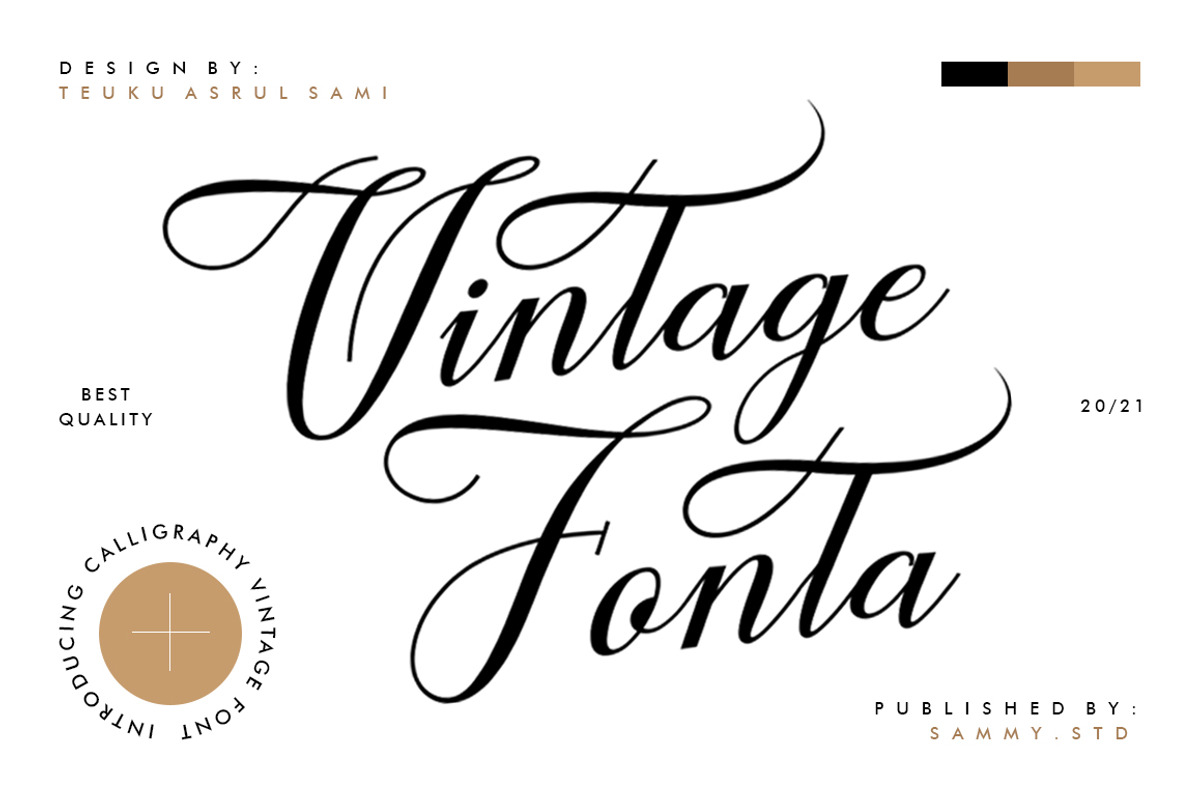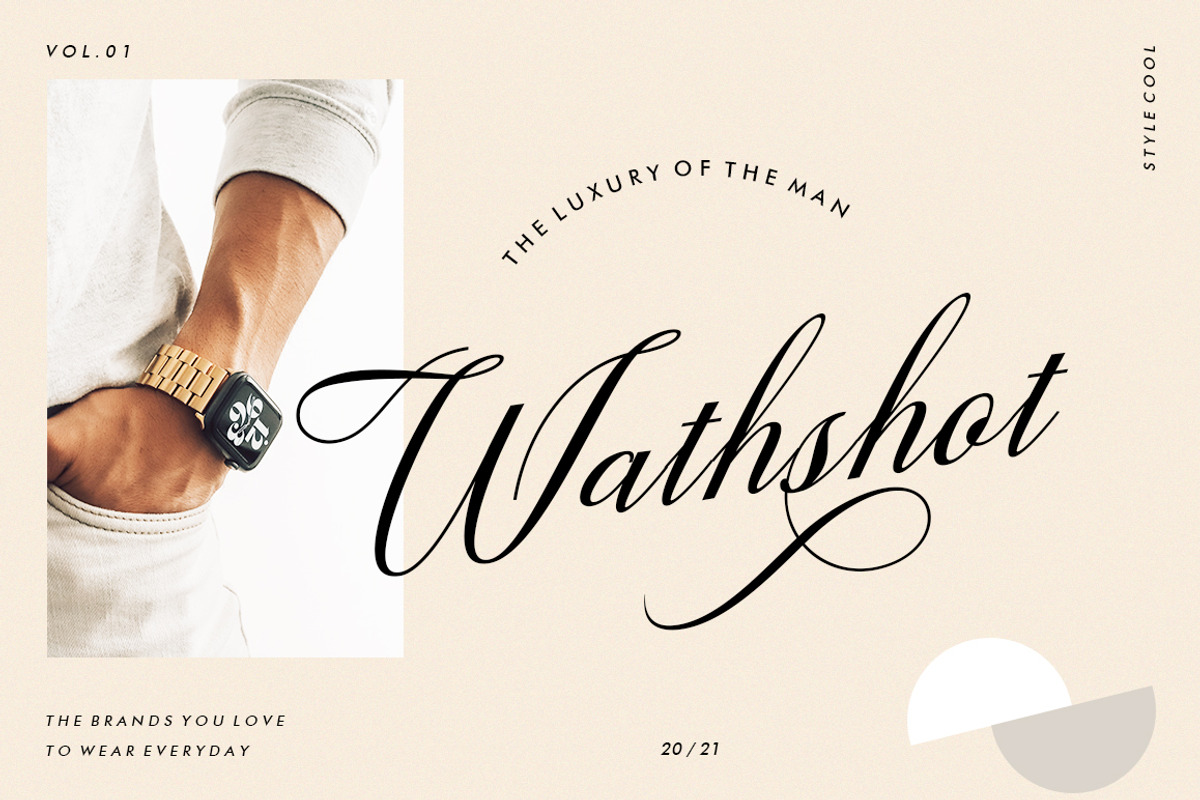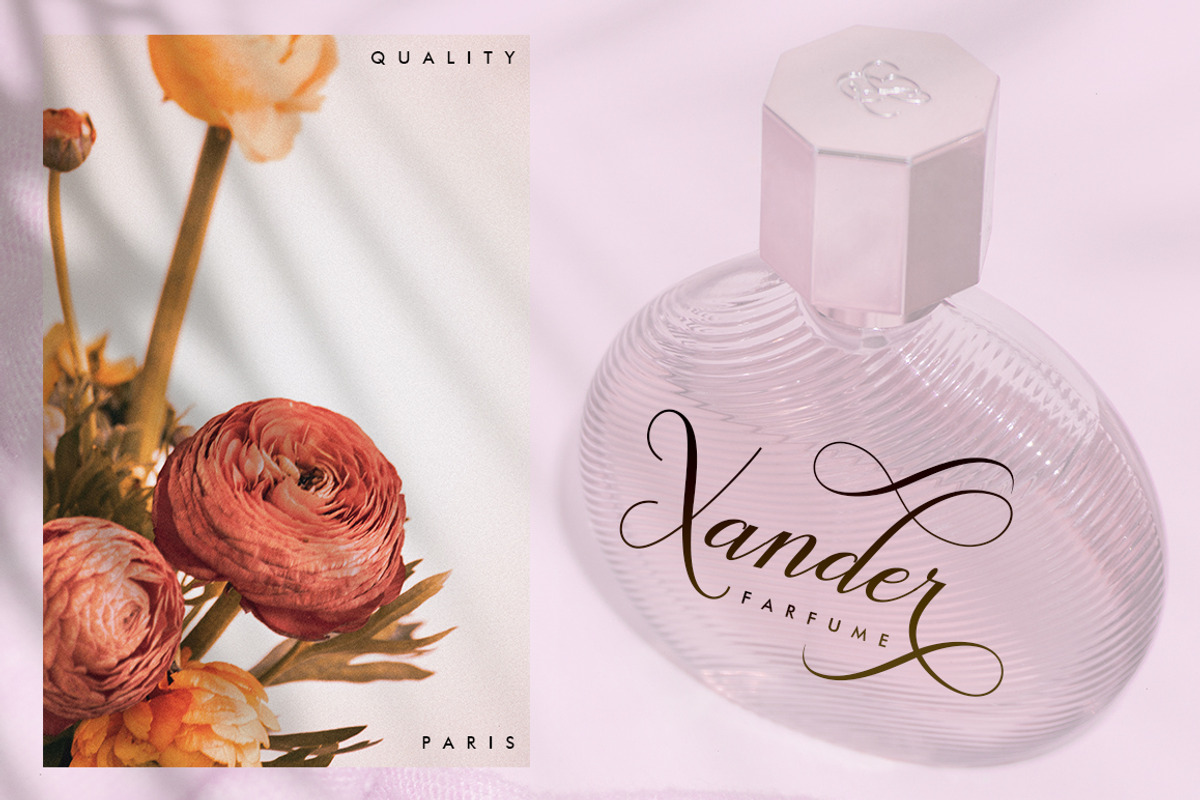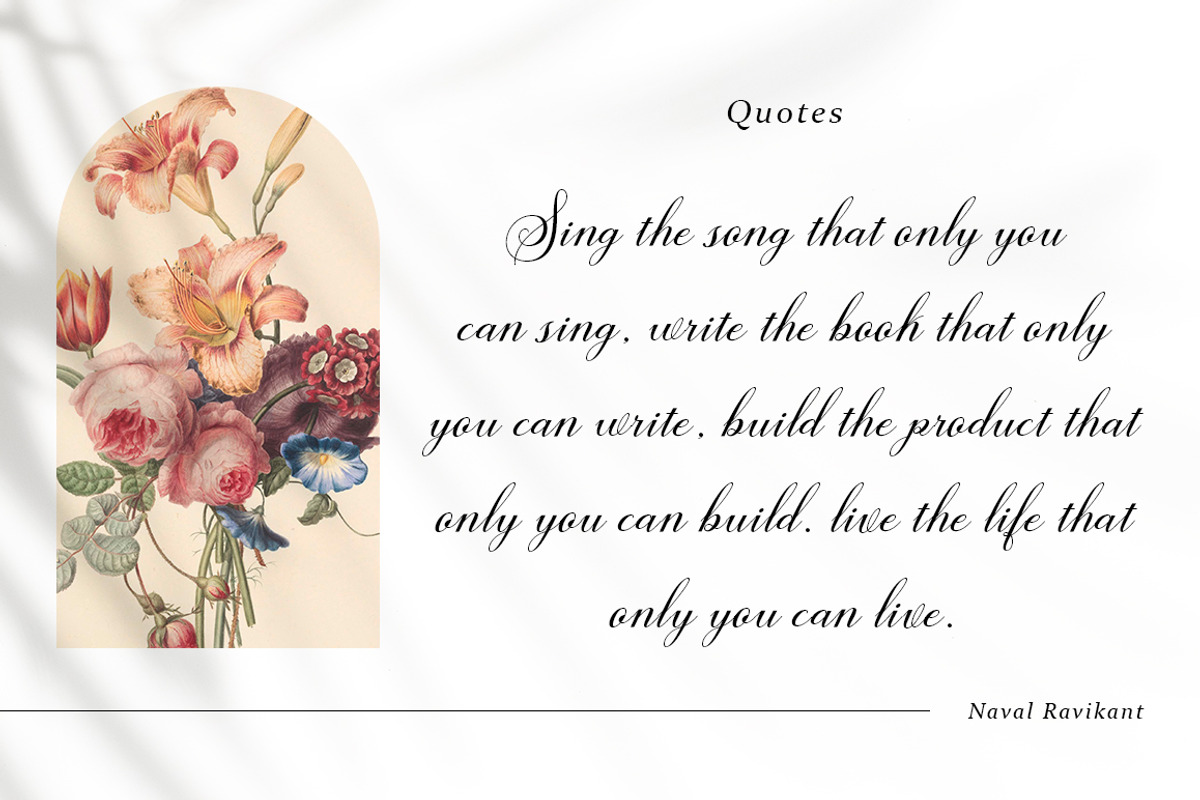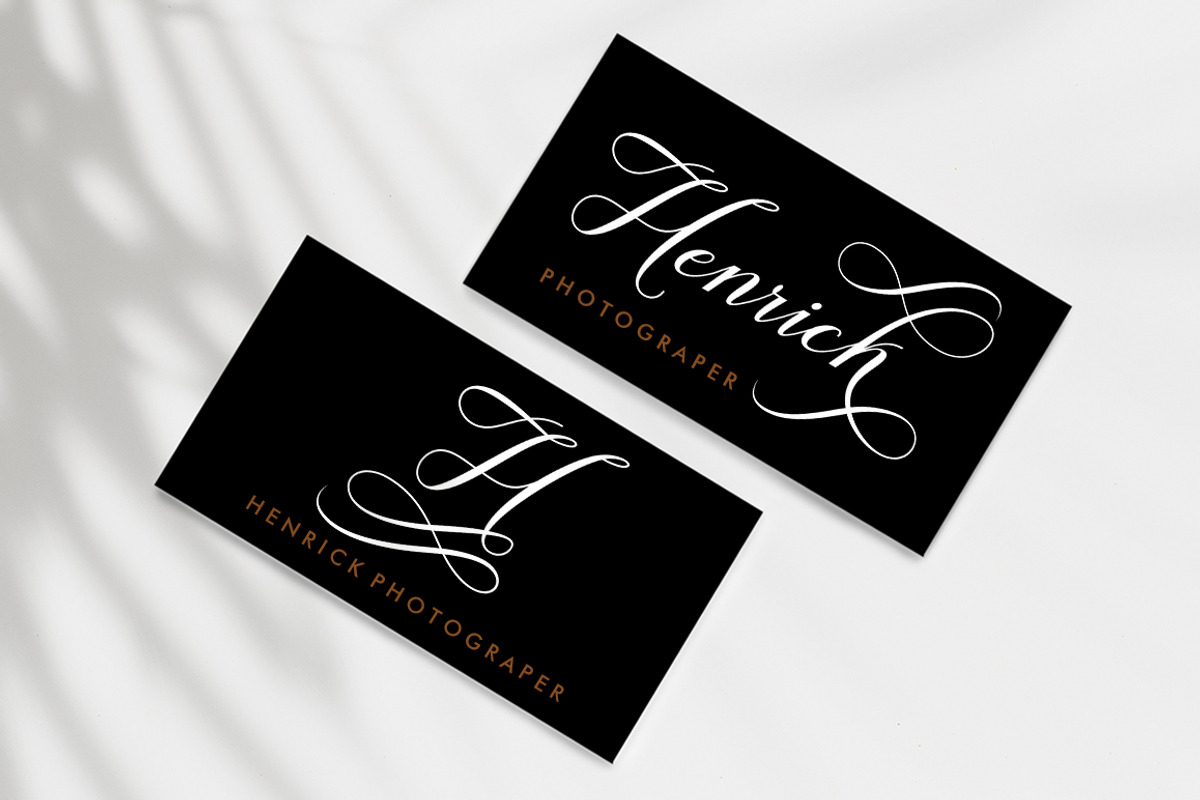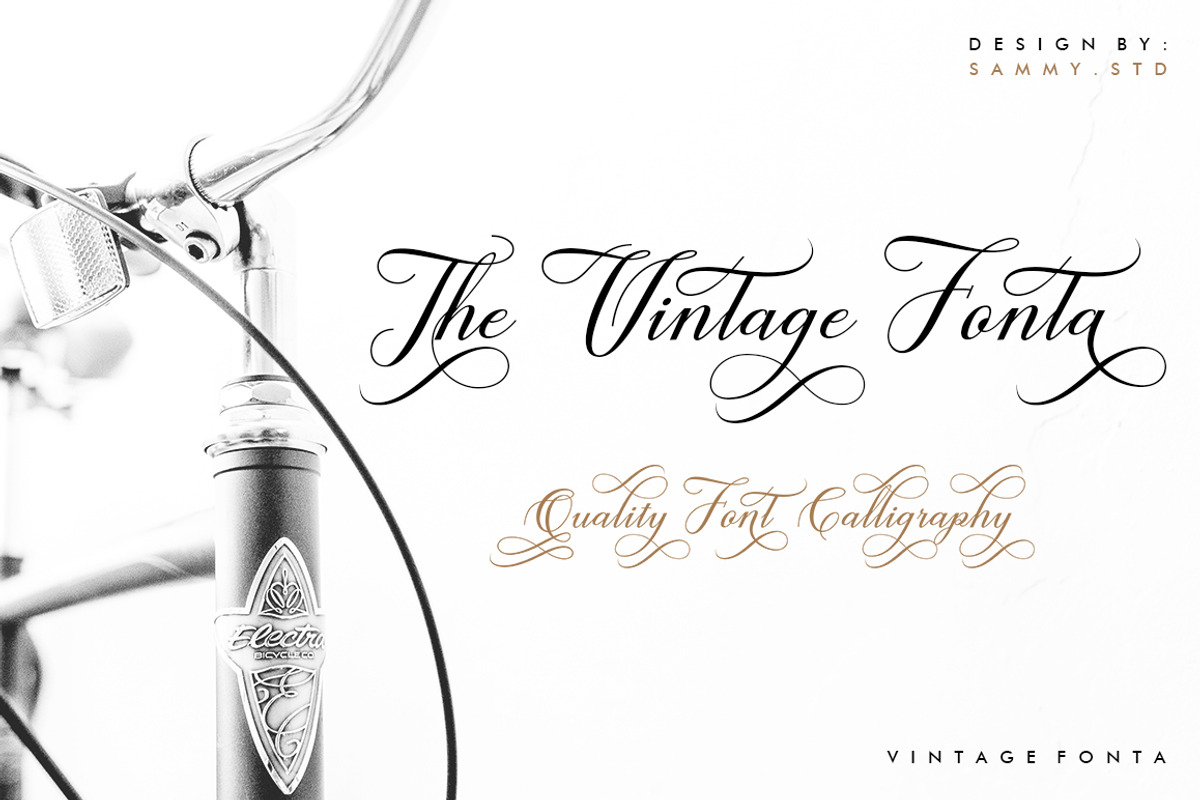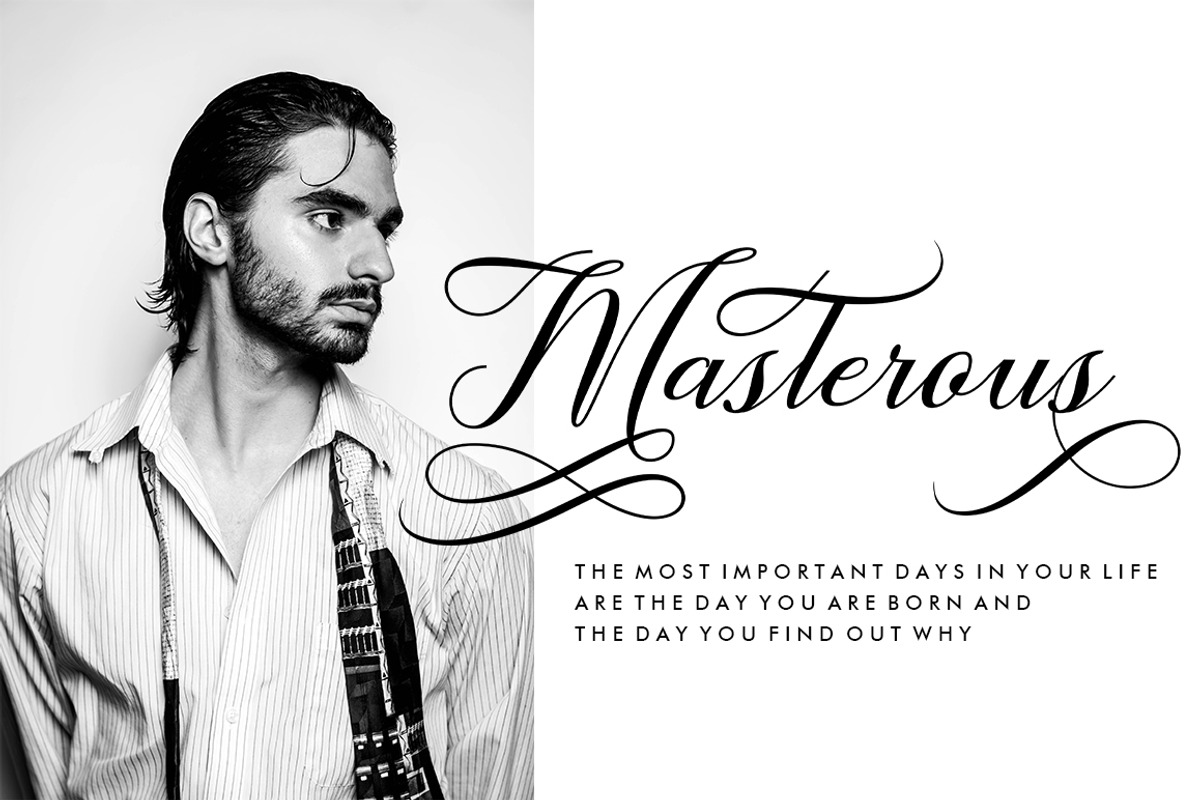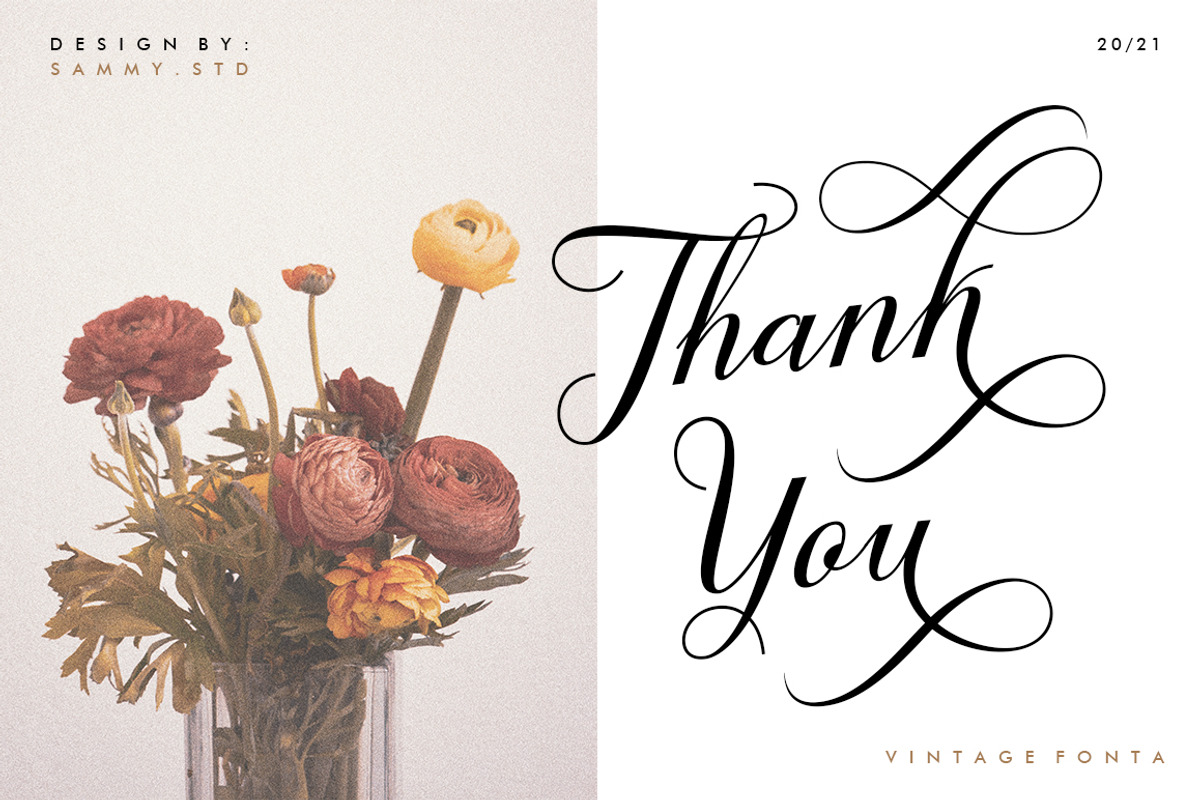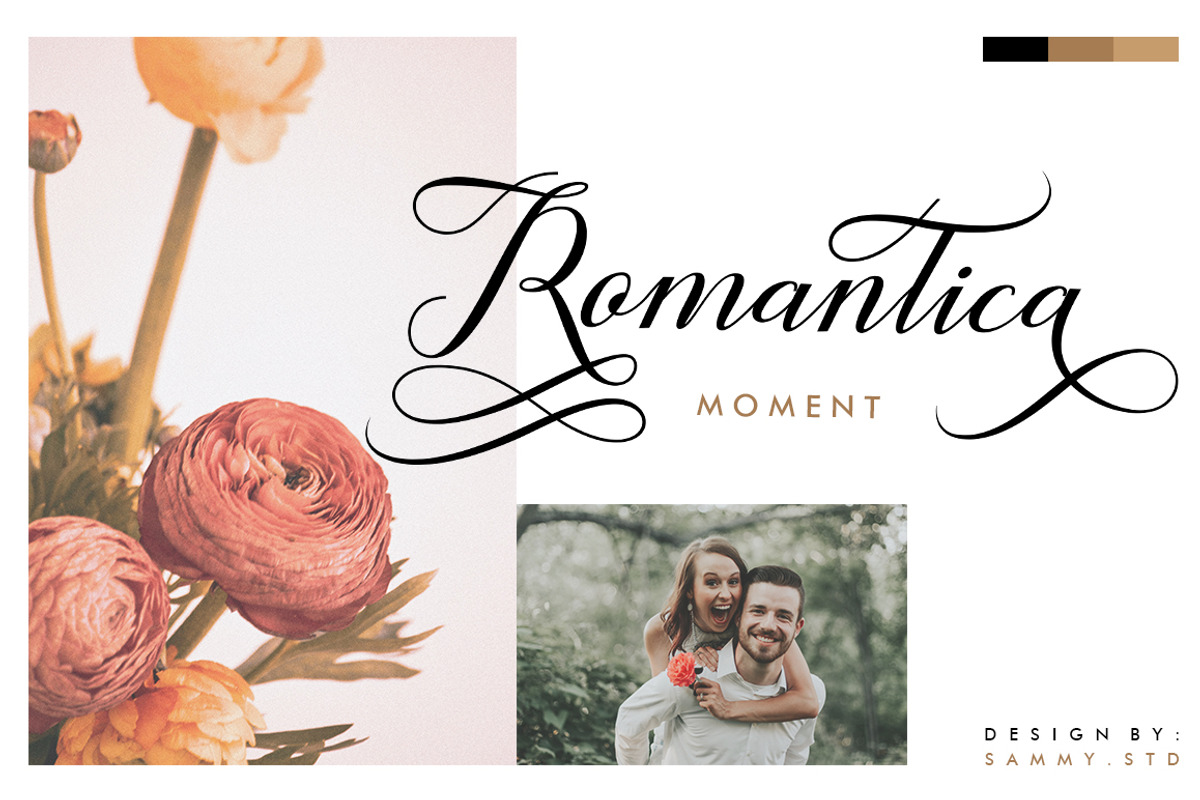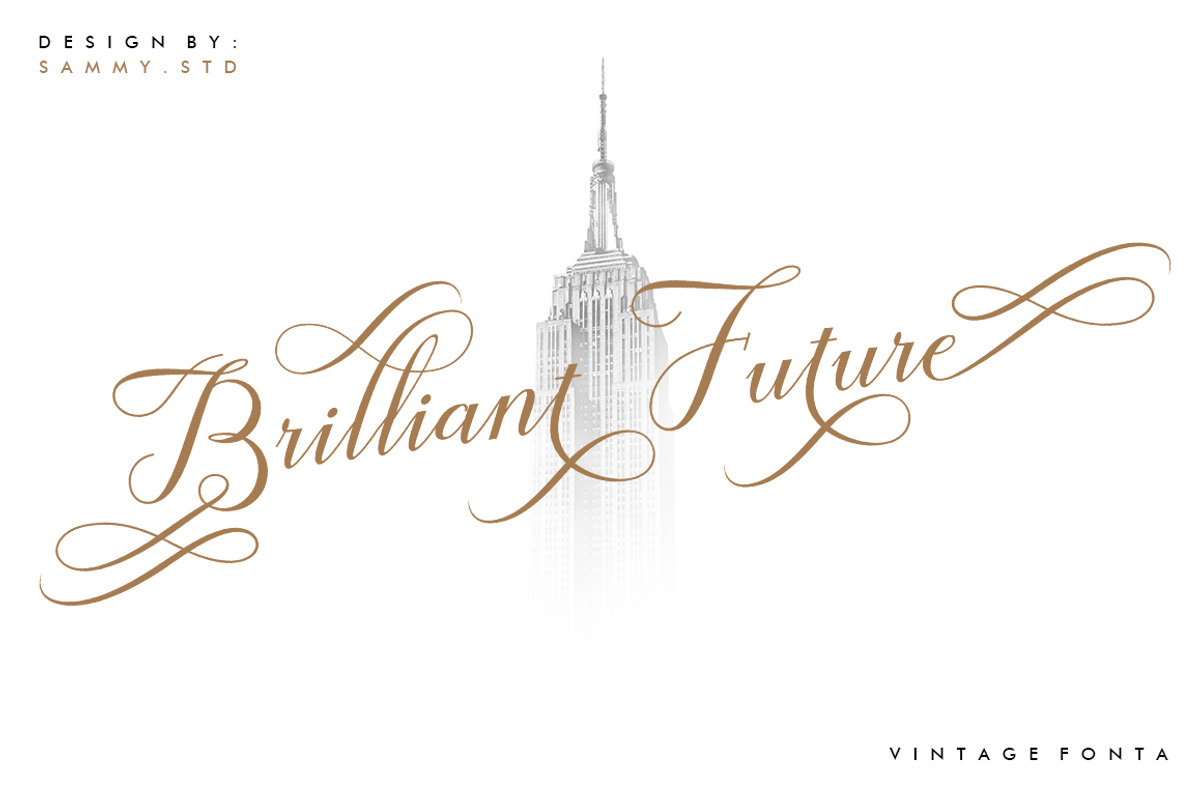
Vintage Fonta
Introducing Vintage Fonta.
Vintage Fonta is a classic calligraphy font. Here you will get a beautiful classic font. This font is available in several modern swirls that can make your work look elegant, sweet and perfect.
With this style, this font will be suitable for logos, branding projects, design of household appliances, product packaging, mugs, quotes, posters, shopping bags, logos, t-shirts, book covers, business cards, invitation cards, greeting cards, and all your other beautiful projects.
You can use this font for your work very easily. Because there are many features in it. Contains a complete set of upper and lowercase letters, punctuation, numbers and multilingual support. This font also includes several alternative styles Set Stylistic For those of you who have software that is able to work OpenType (Corel Draw / Photoshop / Illustrator / InDesign).